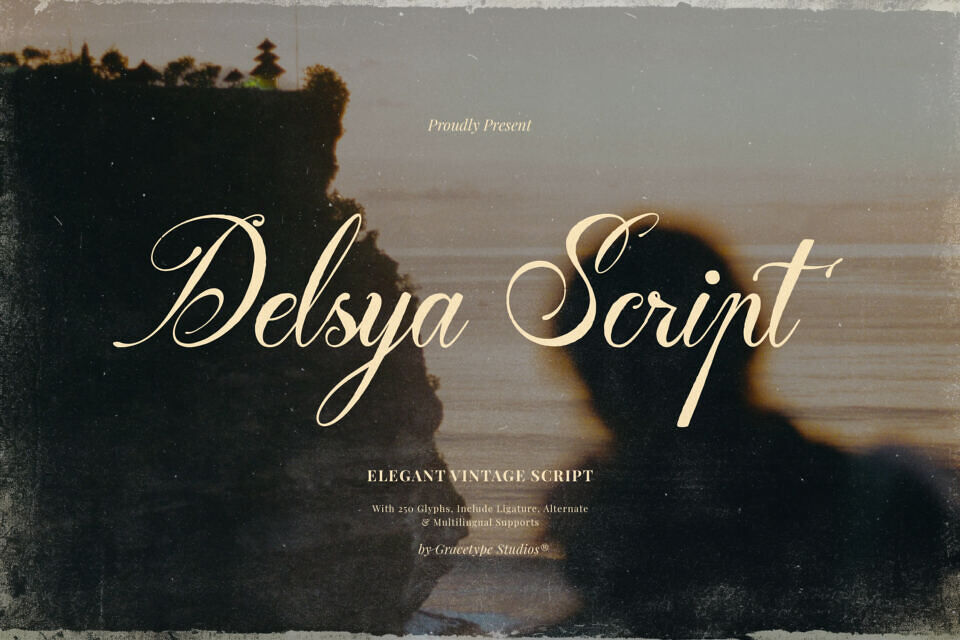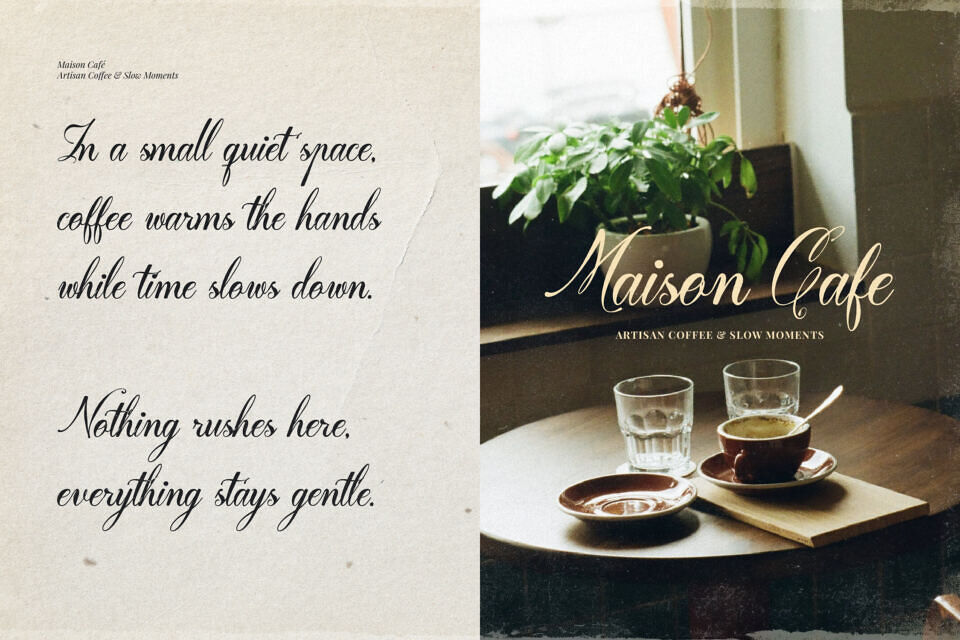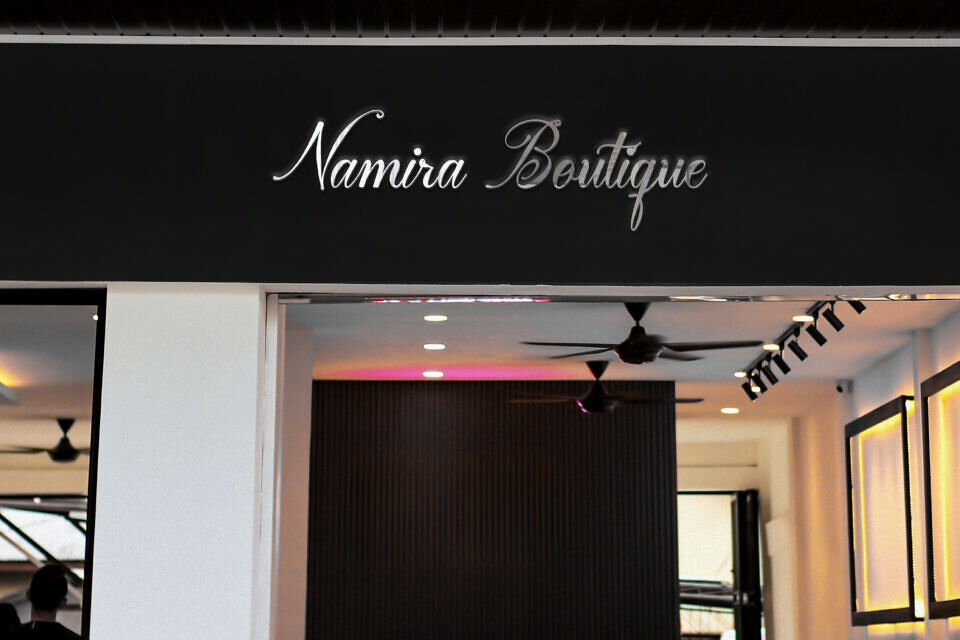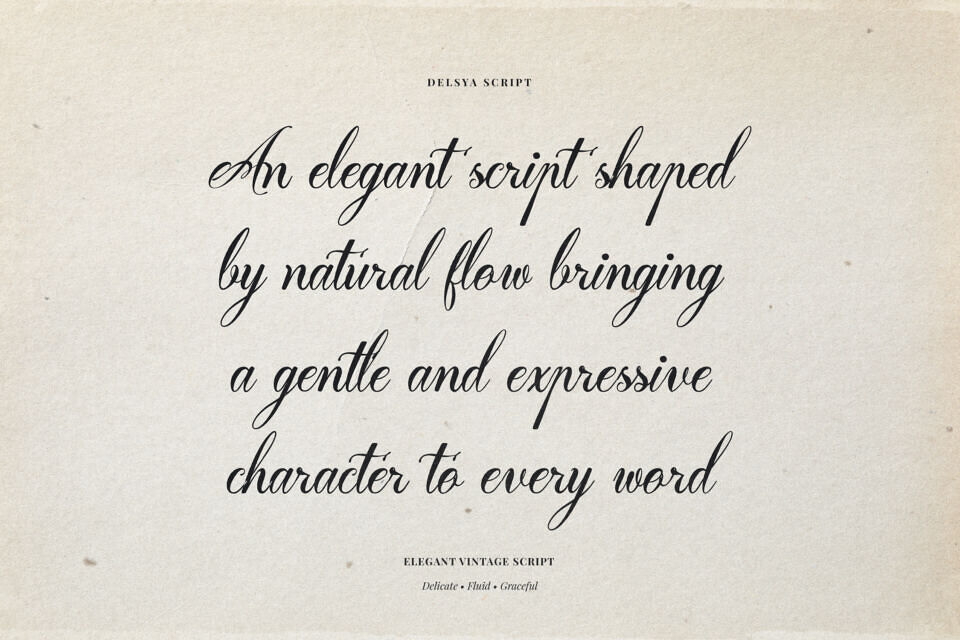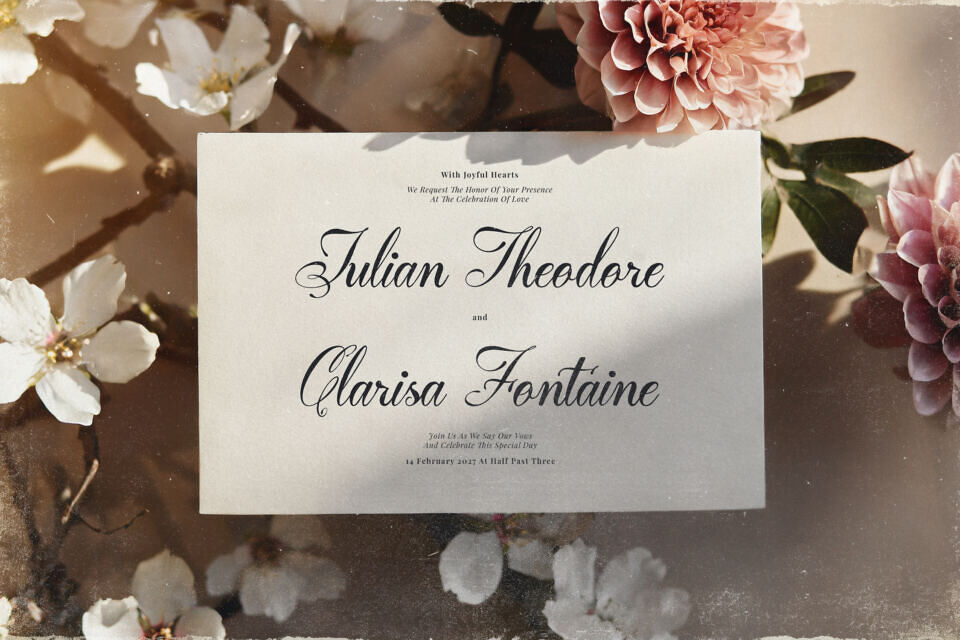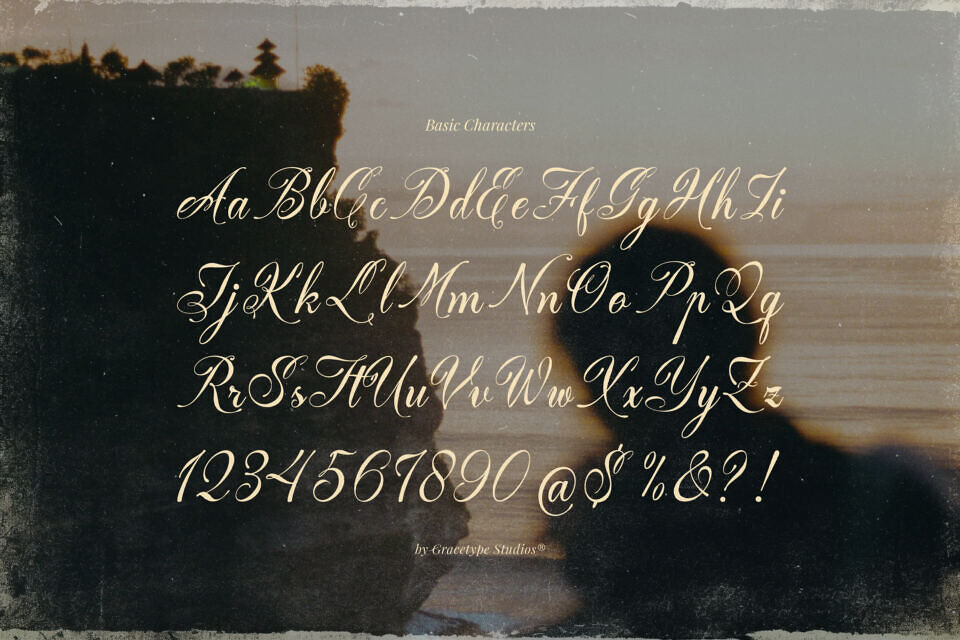
Delsya Script Font
Delsya Script is an Elegant Vintage Script from Gracetypestudio, suitable for any projects such as: logos, branding projects, homeware designs, product packaging, mugs, quotes, posters, shopping bags, t-shirts, book covers, name card, invitation cards, greeting cards, label, photography, watermark, special events, and all your other lovely projects that need a Script taste.